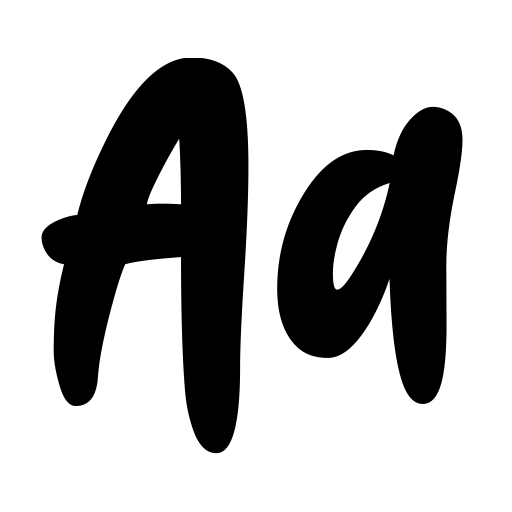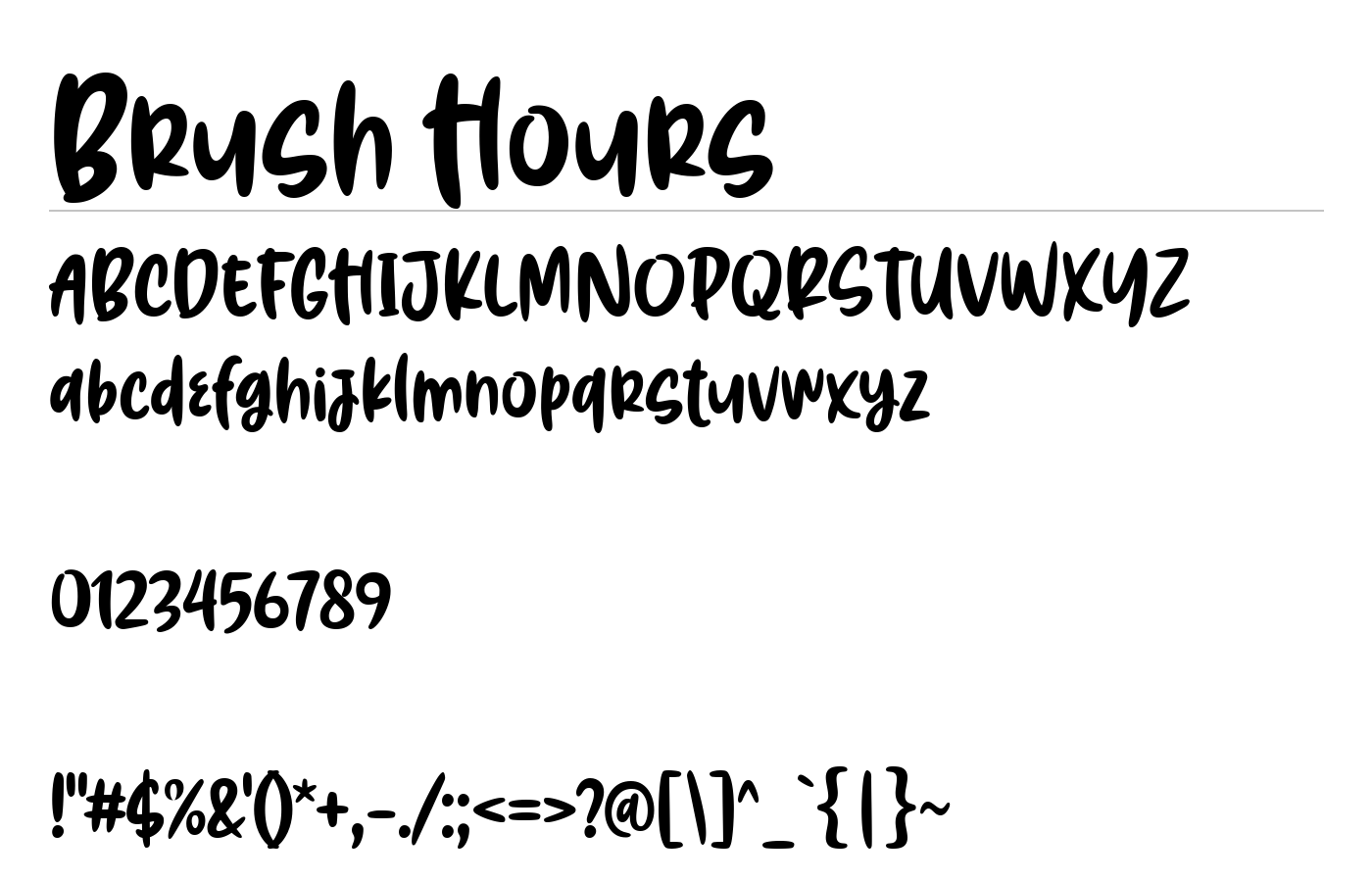
Brush Hours is a playful, casual script font with a hand-painted, brush-lettering style that brings a lively and friendly vibe. Its bold weight and rounded, slightly irregular strokes make it perfect for eye-catching headlines, branding, and creative projects that want to feel approachable and fun. This font works wonderfully in packaging, social media graphics, and logos where a personal, handmade touch is desired.
Brush Hours Font
About Brush Hours Font
| Font family | Brush Hours Font |
| Designer | Situjuh Nazara |